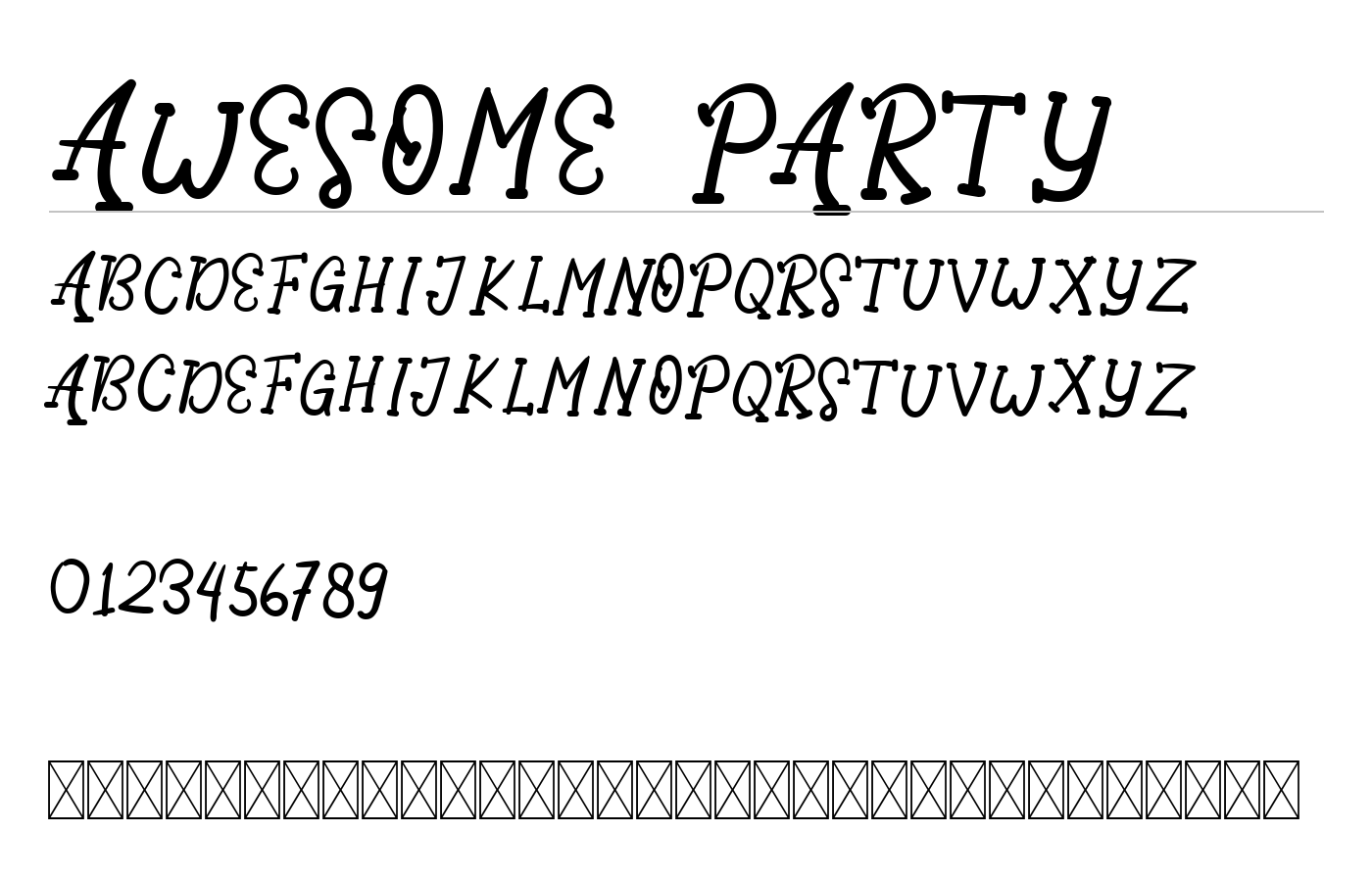
Awesome Party Font is a playful and spirited script-inspired typeface with a casual, hand-drawn feel. Its lively strokes and quirky details make it perfect for fun, youthful branding, party invitations, and creative headlines that want to convey energy and cheerfulness. This font works well where a friendly, informal vibe is needed to bring a sense of joy and celebration.
Awesome Party Font
About Awesome Party Font
| Font family | Awesome Party Font |
| Designer | jos gandos |